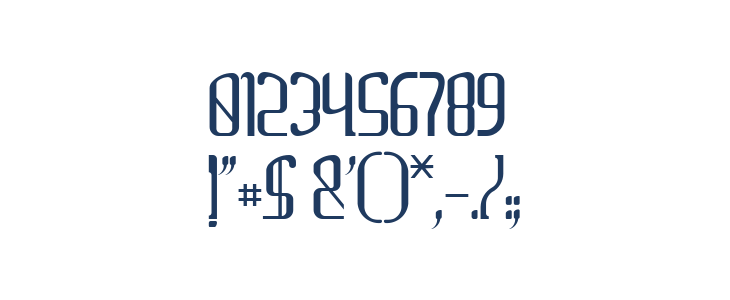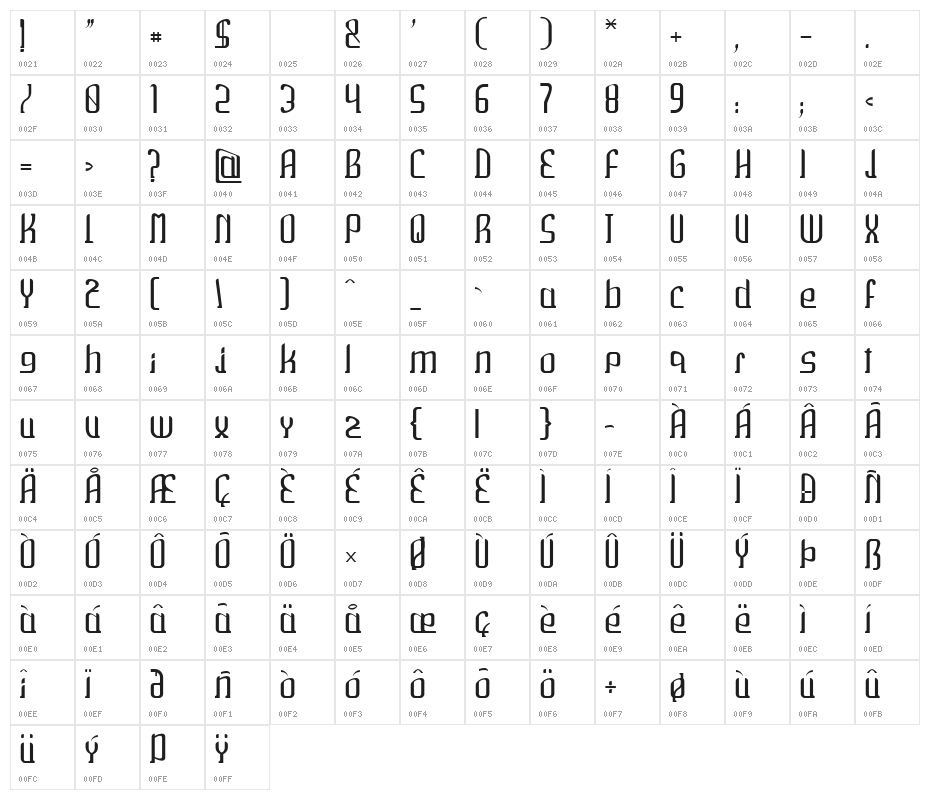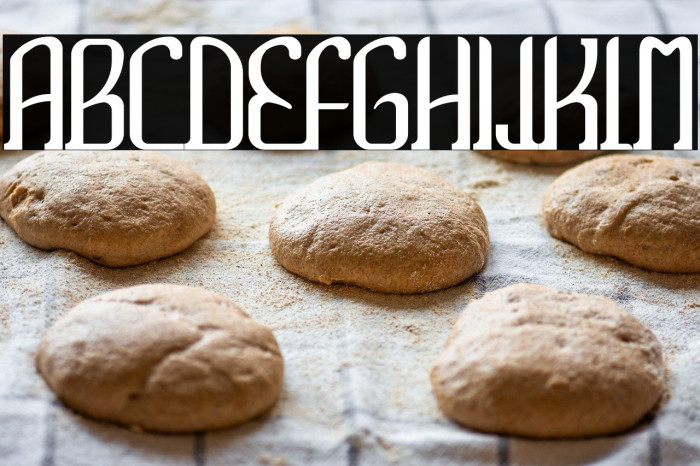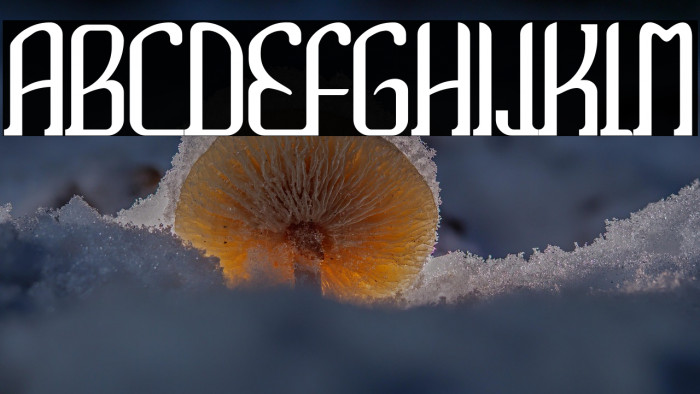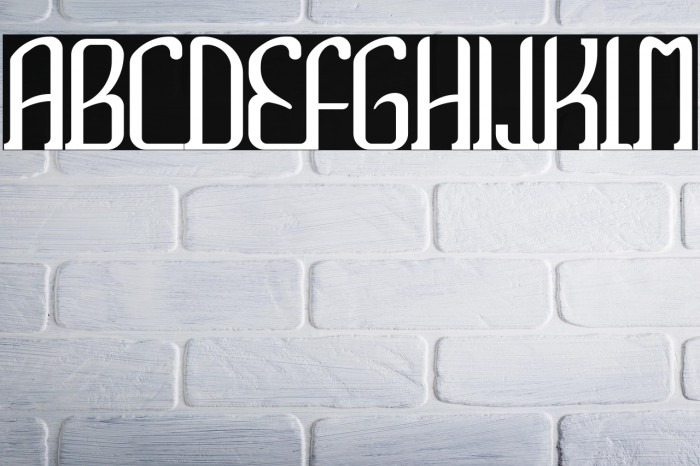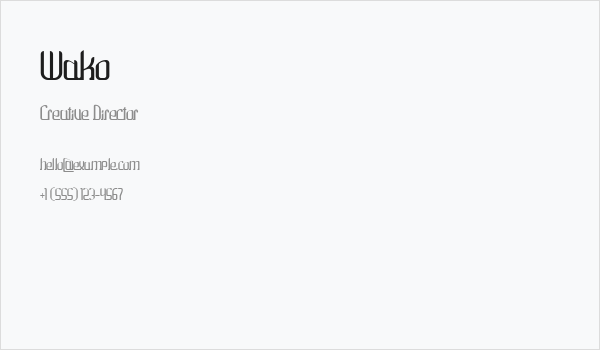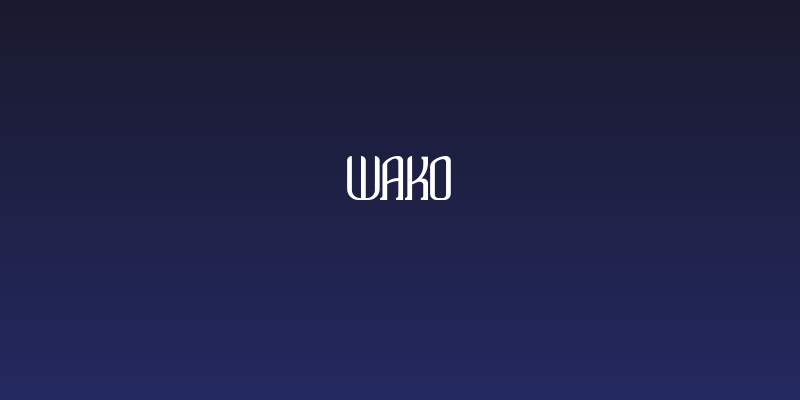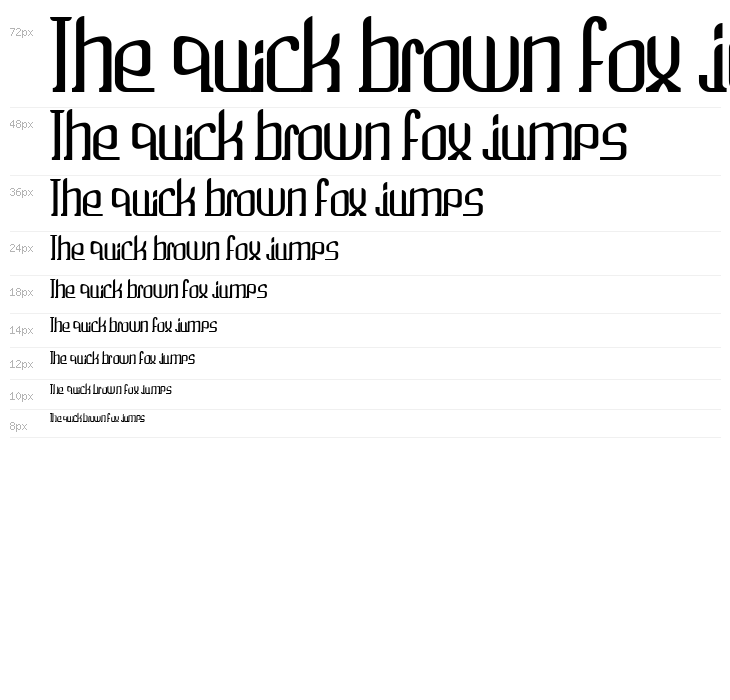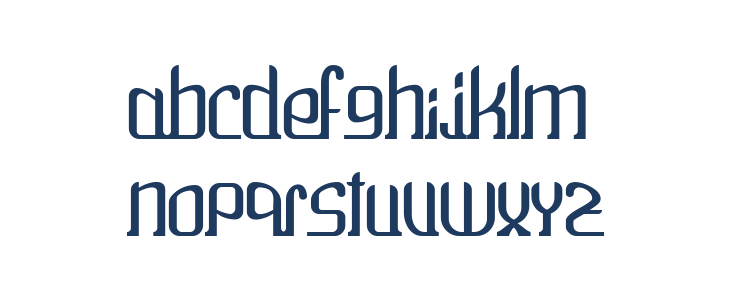
Wako Font
| Caso d'uso | Headlines, Logos, Branding |
| Progetti proposti | Ideal for branding, advertising, and editorial design projects that require a modern and stylish touch. |